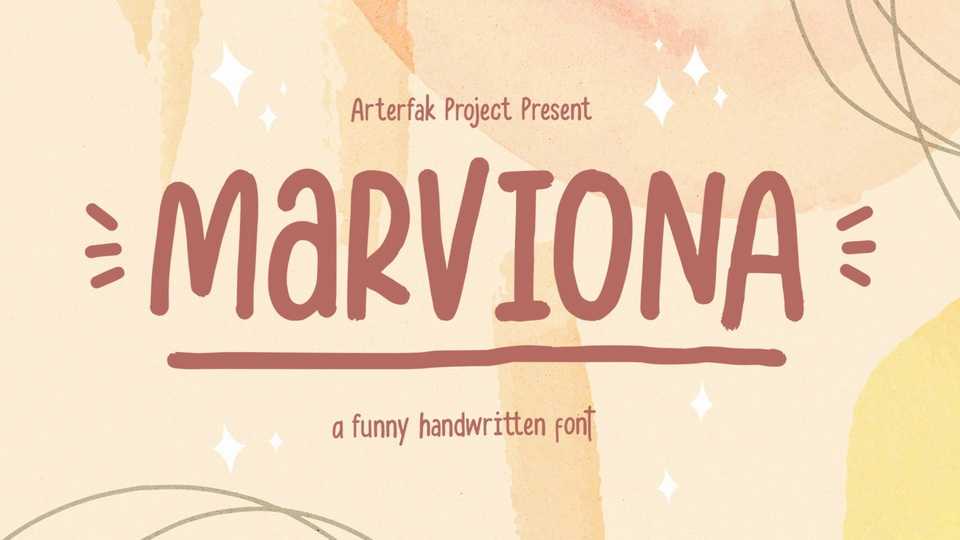
Download Marviona font, a typeface inspired by cute handwriting and casual-minimalist design. Marviona is crafted with monoline brush with the natural flow of the letterforms.